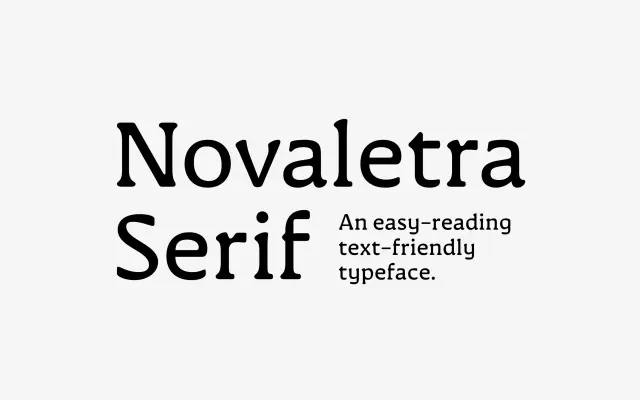
Novaletra Serif CF
A low-contrast humanist serif spanning seven weights with italics, covering Latin, Cyrillic and Vietnamese scripts for body text and headline use.
Designed for legibility across a wide range of sizes, Novaletra Serif CF offers 14 styles from Light to Heavy, each with a matching italic. The low-contrast construction keeps it readable at small text sizes while the weight range gives it sufficient range for headlines. Language support is broad, taking in Belarusian, Bulgarian, Ukrainian, Vietnamese and over 30 other languages across Latin and Cyrillic scripts.
Low contrast, smooth letterforms with broad weight range suggest a humanist serif designed for multi-purpose use across text and display sizes rather than a classical high-contrast model.